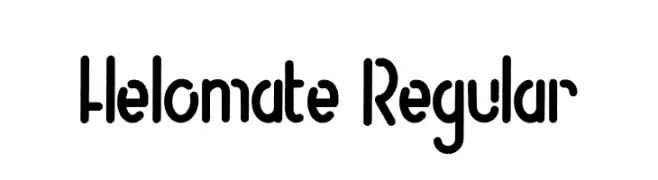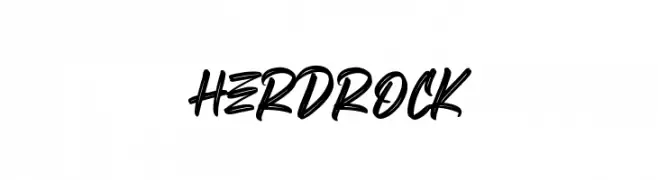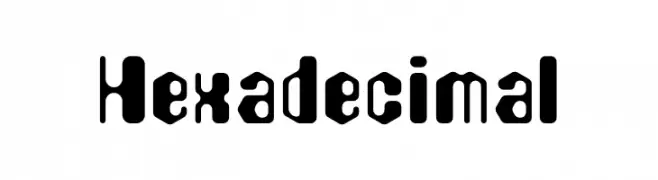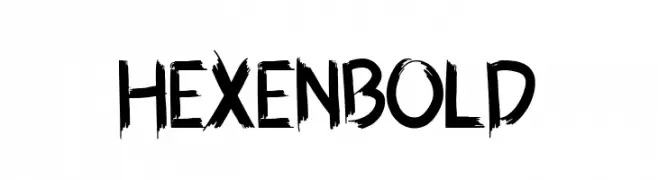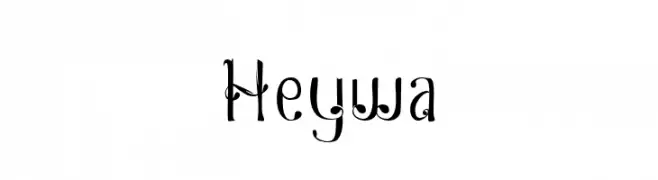
A dynamic, cursive script font with a handwritten feel.
A playful, handwritten font with rounded edges and a casual style.
A bold, playful font with rounded edges and a slightly condensed structure.
A modern, geometric font with thin, uniform lines and a minimalist style.
A bold, energetic script font with a hand-drawn, dynamic style.
An elegant, flowing script font with graceful curves and ornate details.
A classic serif font with elegant lines and moderate contrast, suitable for versatile applications.
A bold, geometric font with a modern, digital aesthetic.
A bold, brush-style font with dynamic and energetic strokes.
A decorative and whimsical font with elegant swirls and curls.